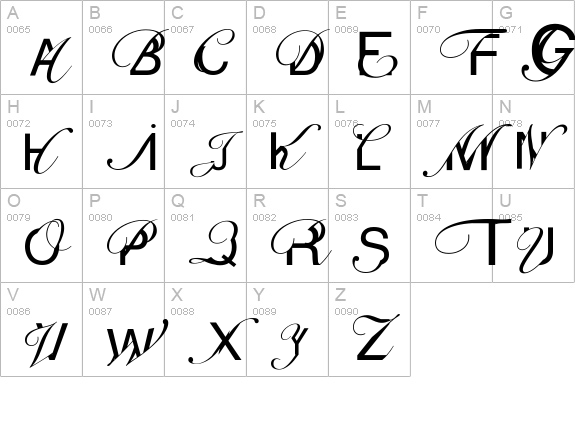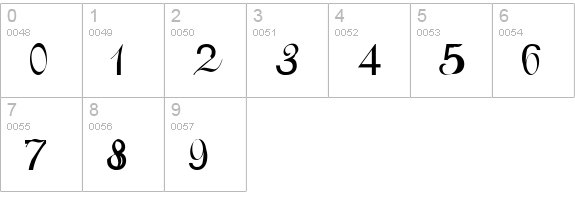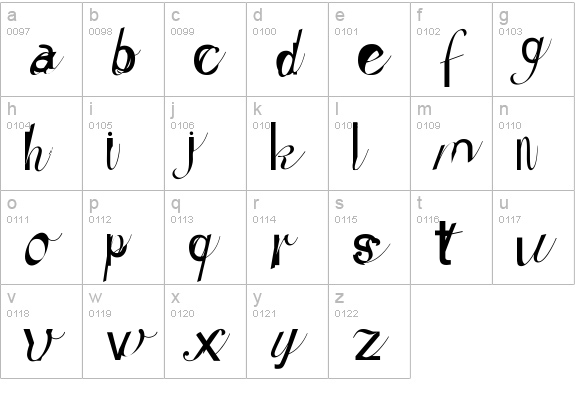
2RebelsUn Font Details
Introducing 2RebelsUn font, a rebellious and edgy typeface that exudes a sense of boldness and individuality. With its unique design and striking appearance, this font is perfect for making a statement and standing out from the crowd. The sharp angles and unconventional shapes of 2RebelsUn font give it a modern and daring look that is sure to capture attention. What's even better is that 2RebelsUn font is completely free to download at FontsMarket.com. Whether you're working on a creative project, designing a logo, or simply looking to add a touch of originality to your work, this font is a fantastic choice. Don't miss out on the opportunity to enhance your designs with this one-of-a-kind typeface that is both powerful and expressive. Download 2RebelsUn font today and let your creativity run wild.